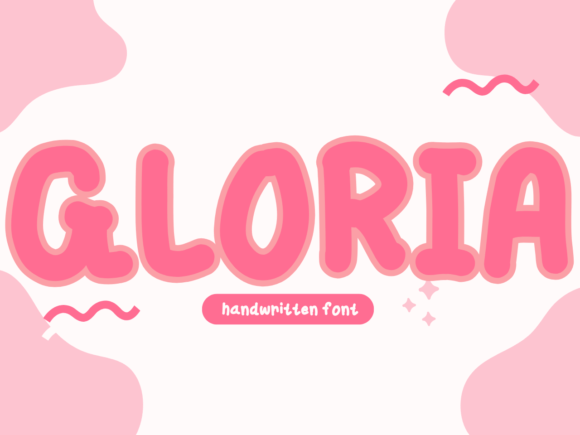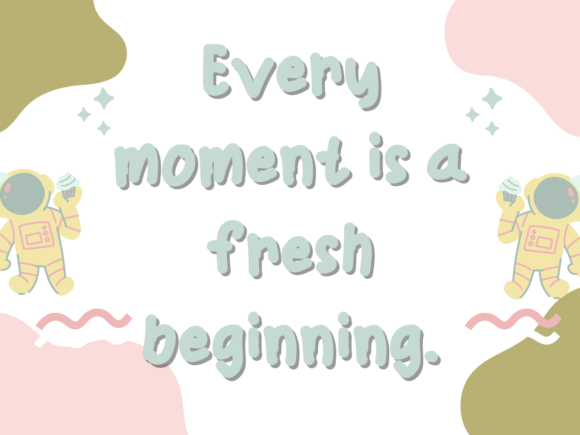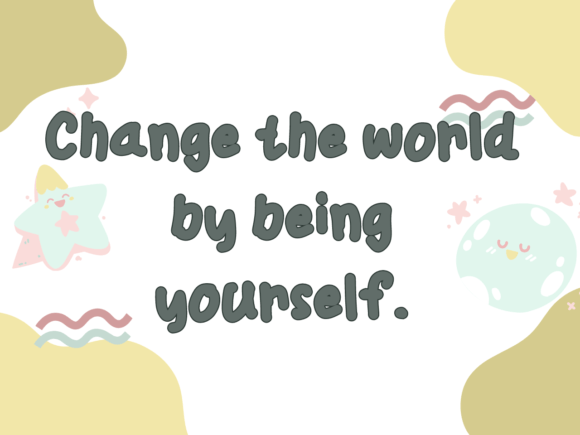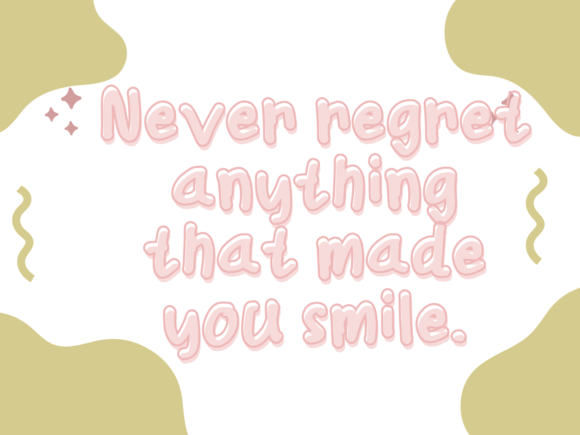
Gloria Font: A Cute Handwritten Font for Social Media Design
About the Gloria Font
The Gloria Font is here to transform your projects with its distinctive character and style. Gloria is a sweet and friendly handwritten font. Its natural and unique style makes it incredibly fitting to a large pool of designs. The only limit is your imagination!
Gloria’s friendly, informal style makes it ideal for projects needing a warm, approachable feel. It excels in headlines, short paragraphs, social media graphics, and branding elements like logos for artisan businesses or children’s products. Avoid using Gloria for large blocks of body text or UI elements where readability is paramount; its handwritten nature can hinder legibility in smaller sizes or dense layouts.
Pairing Gloria with a clean sans-serif like Open Sans for body copy creates a strong contrast, balancing its casual charm with a professional touch. For a more playful look, consider pairing it with a geometric sans-serif like Futura, or for a more elegant feel, a delicate serif like Lora could work well.
Gloria projects a friendly, optimistic personality, perfect for brands emphasizing warmth and approachability. Its hand-drawn quality lends itself to projects that need a handcrafted, personal feel.